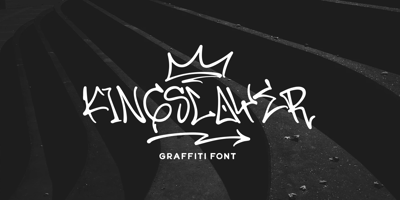
Kingslayer
Kingslayer font
Kingslayer Font Family was designed by Hendry Juanda and published by Letterhend. Kingslayer contains 1 styles and family package options. Kingslayer – Graffiti FontIntroducing, Kingslayer. Kingslayer is a graffiti font inspired with unique graffiti letterform to that will make your design standout! Kingslayer will fit perfectly for branding design, packaging, headline, graffiti poster, etc.Features : Uppercase Lowercase Number Punctuation Multilingual PUA Encode Opentype Stylistic Character Thank You!